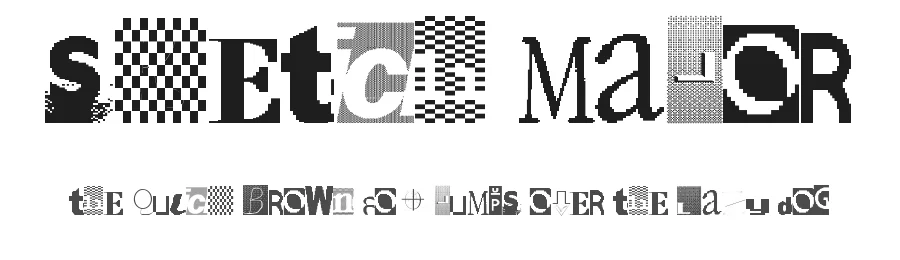
About Anonymous Clippings Font
Anonymous Clippings is a decorative font designed by Centric Studios. It includes 102 glyphs, a regular weight, TTF (TrueType) format, and 91 languages. Anonymous Clippings is free to download; check the license details on this page before commercial use. Decorative fonts like Anonymous Clippings work best for logos, posters, packaging, and standout headlines.
Anonymous Clippings Font is a decorative font that shines as a display or heading face. Pair it with a clean sans-serif or serif font for body text β the contrast creates a clear hierarchy while the two styles stay balanced and easy to read.
Anonymous Clippings Font
Anonymous Clippings Font is a decorative typeface by Centric Studios, ideal for logos, invitations, branding, and creative projects.